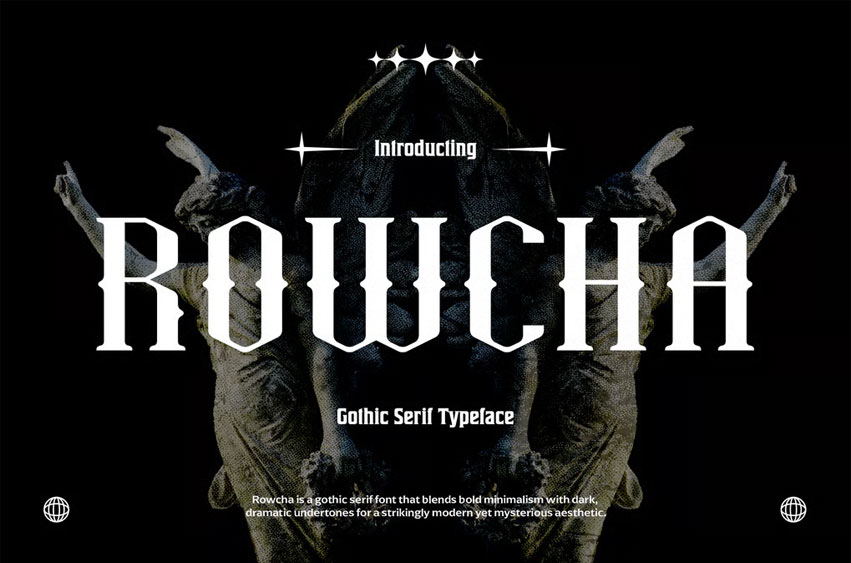
Rowcha Font is a premium Rock Gothic Serif font designed to bring dark elegance and powerful vintage energy to your branding and design projects. Crafted with bold gothic-inspired serifs and medieval letterforms, this font offers a striking, mysterious, and dramatic touch for logos, posters, music covers, and editorial applications.
Whether you’re working on a rock band logo, gothic branding, horror poster, or fantasy novel cover, Rowcha will give your design a bold and timeless edge. It’s ideal for use in album artwork, magazine headlines, tattoo-inspired designs, Halloween themes, and stylish gothic branding.
• Distinctive Gothic Style: Bold serifs with medieval influences, perfect for dramatic and high-impact typography.
Rowcha combines sharp gothic serifs, strong rock-inspired shapes, and vintage blackletter details to create a powerful visual impact while maintaining readability. Whether you are designing for rock music branding, gothic posters, editorial layouts, or fantasy-inspired projects, this font adapts seamlessly and enhances the dramatic appeal of your work.
• Rock & Metal Branding: Perfect for album covers, logos, and band merchandise.
• Gothic Posters: Create bold, dark, and atmospheric display typography.
• Fantasy & Medieval Themes: Ideal for book covers, game titles, and historical-inspired projects.
• Editorial & Magazines: Add strong character to headlines and layouts.
• Halloween & Horror Designs: Bring a spooky, mysterious aesthetic to seasonal projects.